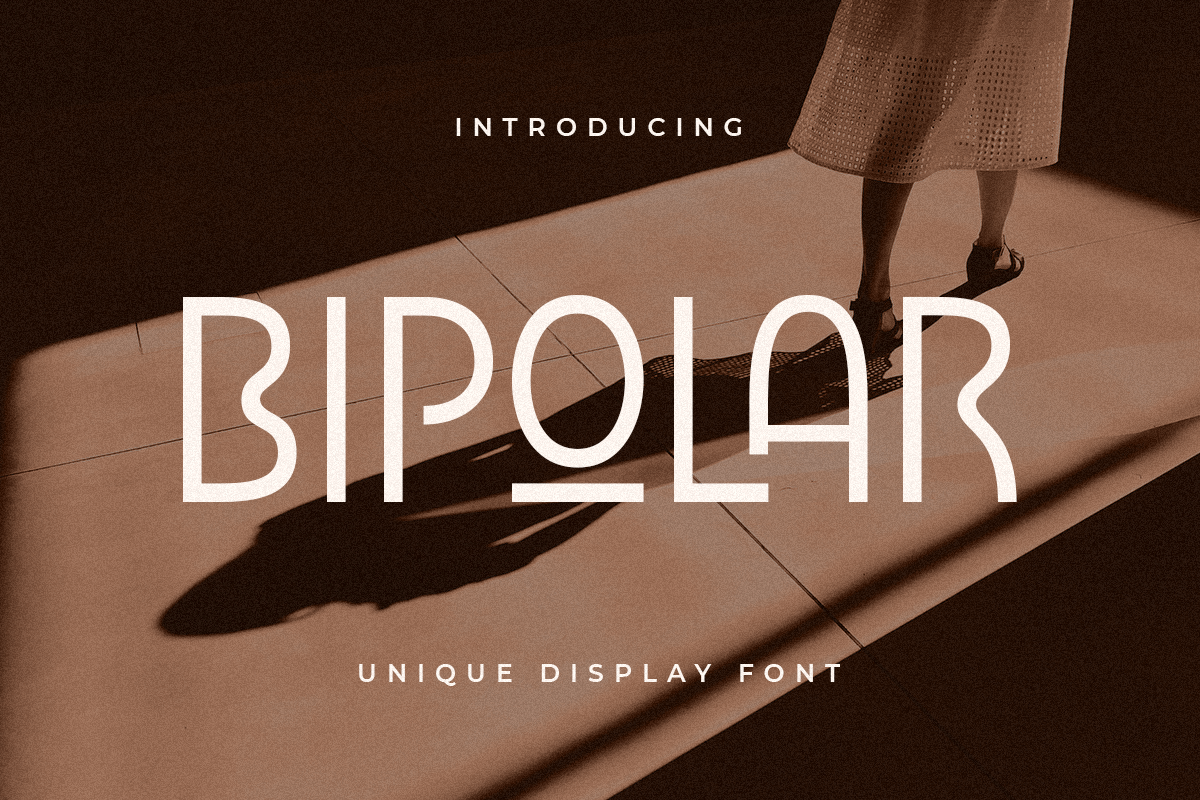
Bipolar
-Unique Display Font
Bipolar
Bipolar is a Unique Display Font with Floating shape make your design look unique and modern
A new Display Font that we created special for Headline, Title and more stand out typography needs, with extra ligature that will add your variations. It's so perfect to add your style and headline overview. And specially for this font, we crafted for unique style and modern feels so enjoy to create any project that will show your main idea out.